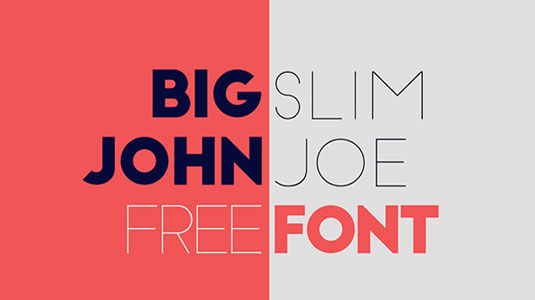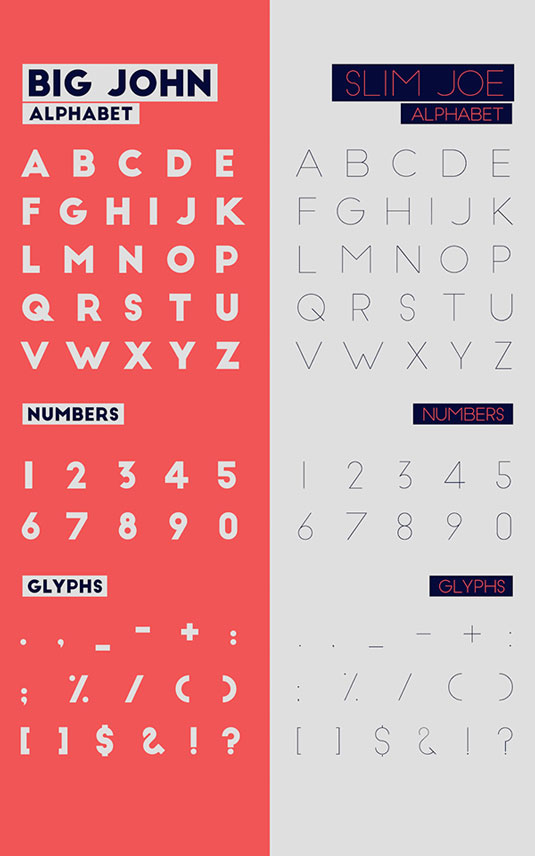
Font of the day: Big John and Slim Joe
Big John by Ion
Spain-based designer Ion is behind today's typefaces of choice. A bold, geometric design, Big John is accompanied by a sister font, Slim Joe, an ultra light version of its bigger brother. Both designs are free for personal and commercial use and are available via Behance.